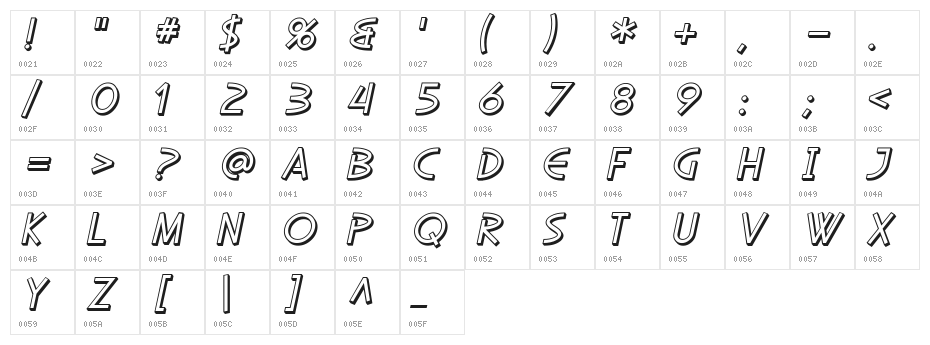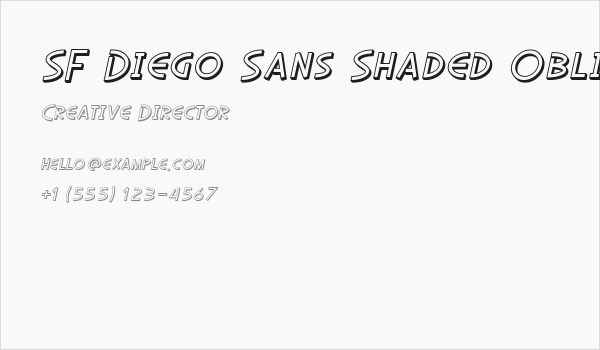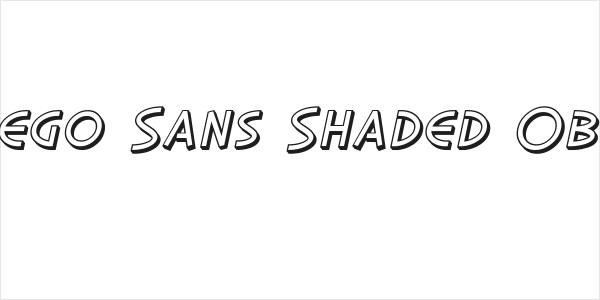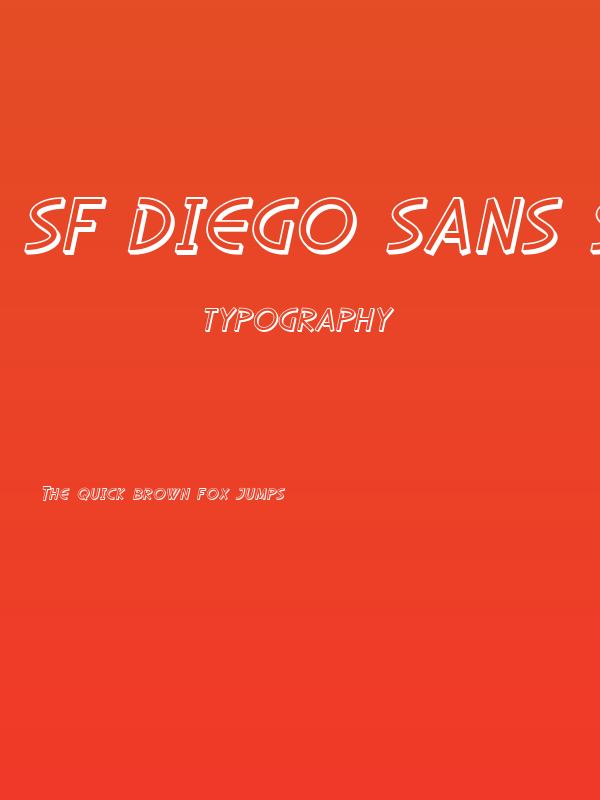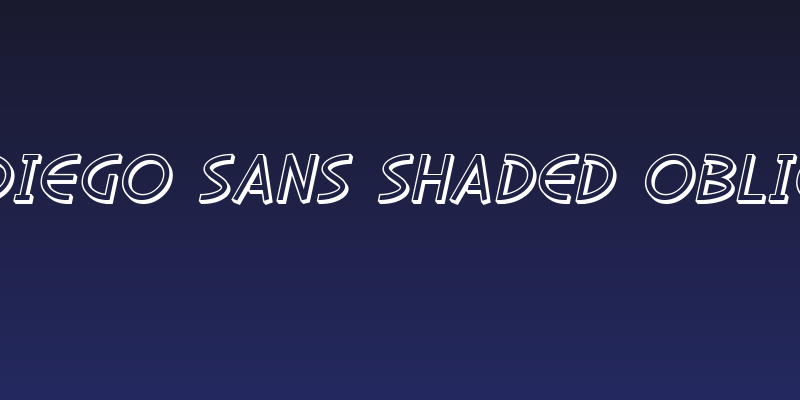
SF Diego Sans Shaded Oblique Font
SF Diego Sans Shaded Oblique Description
This font features a bold, dynamic style with a shaded oblique design that gives it a three-dimensional appearance. The characters are sans-serif, with clean lines and a modern aesthetic. The shading adds depth and a sense of movement, making it stand out in any design. The uppercase and lowercase letters maintain a consistent style, with rounded edges and a slight slant that enhances the oblique effect. The numerals and special characters are equally bold and well-defined, ensuring readability and visual appeal.
| Proposed Projects | Ideal for posters, logos, headlines, and any design that requires a bold, eye-catching font. |